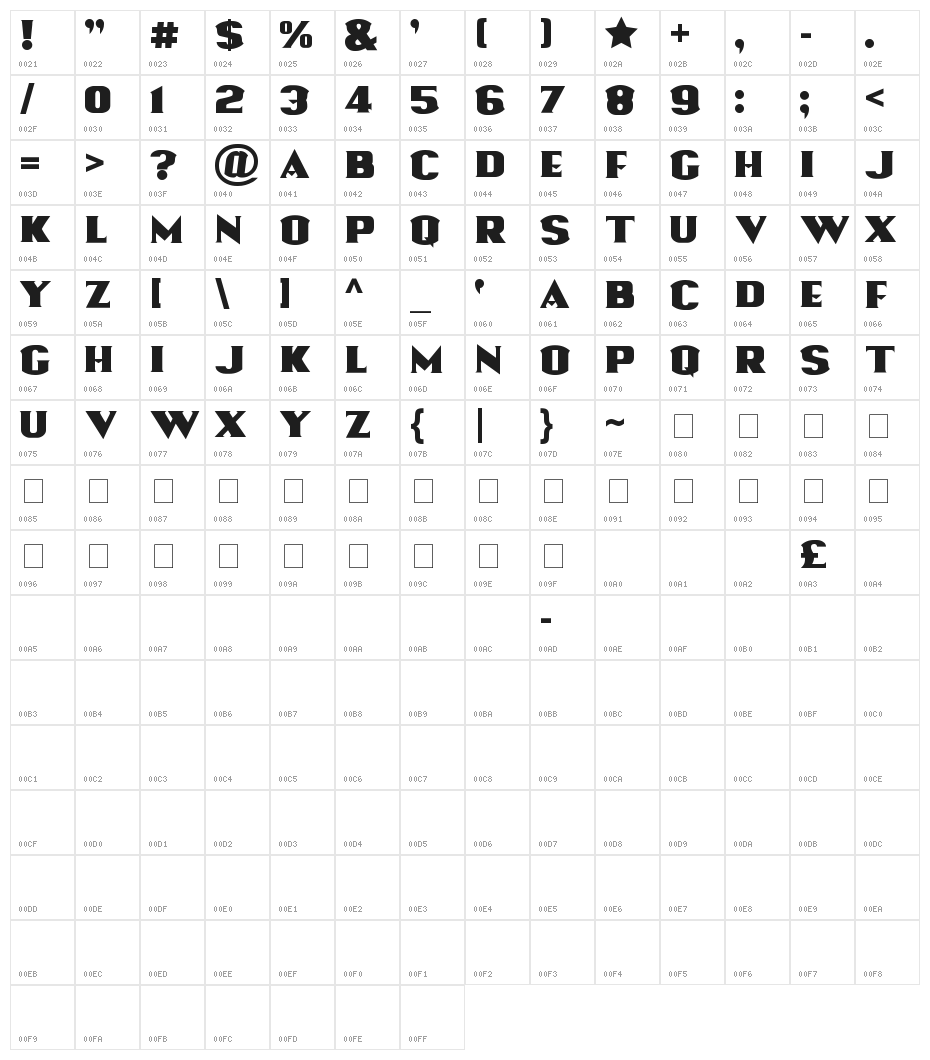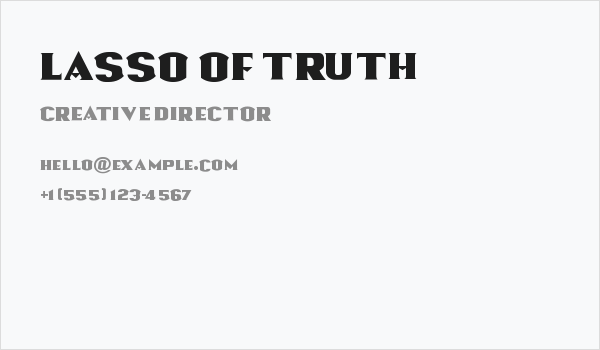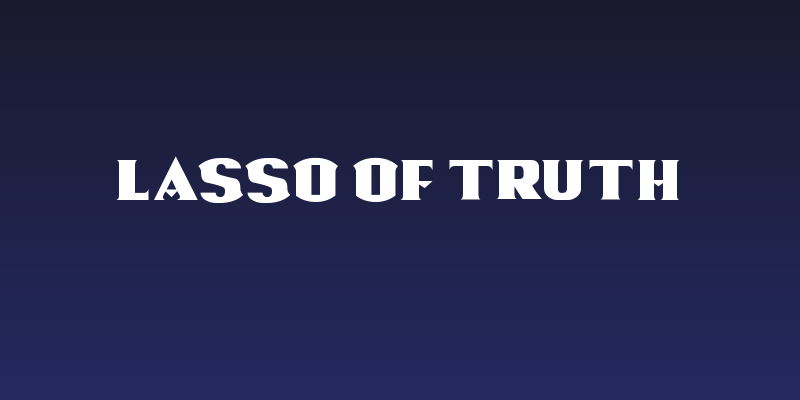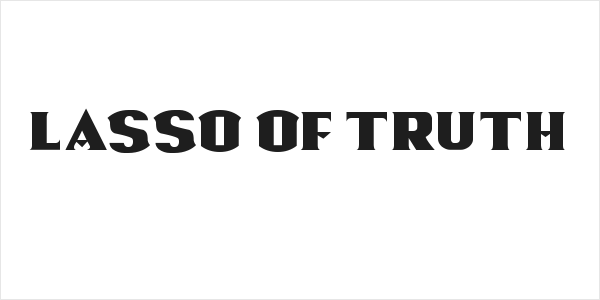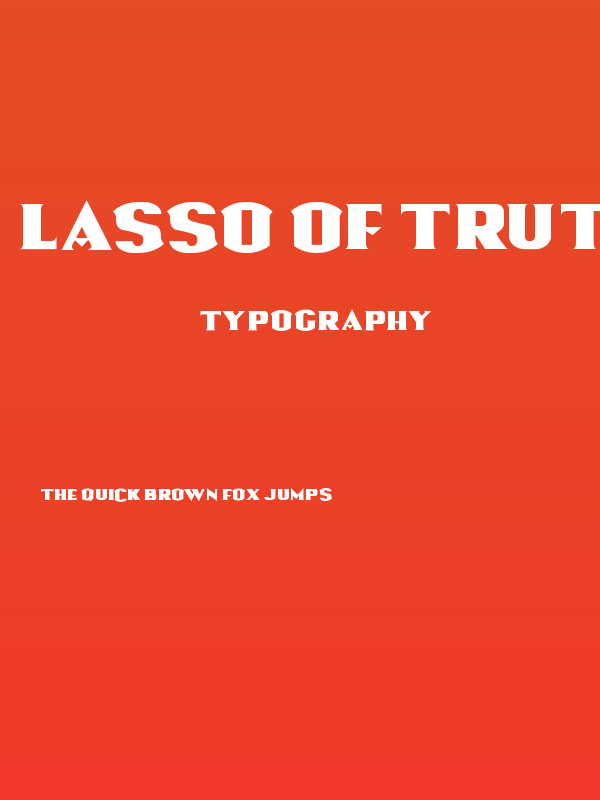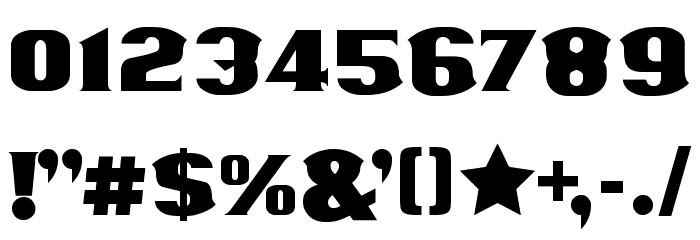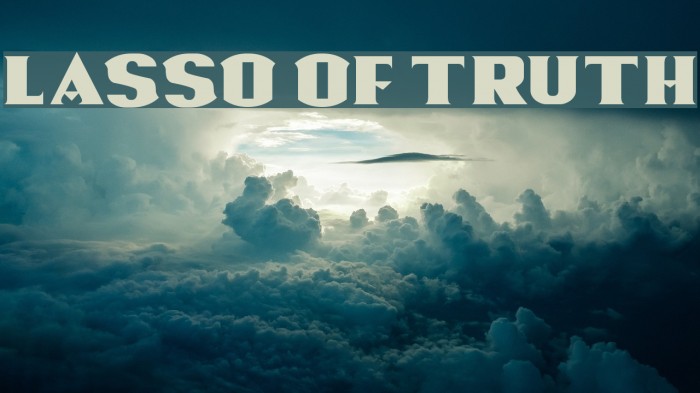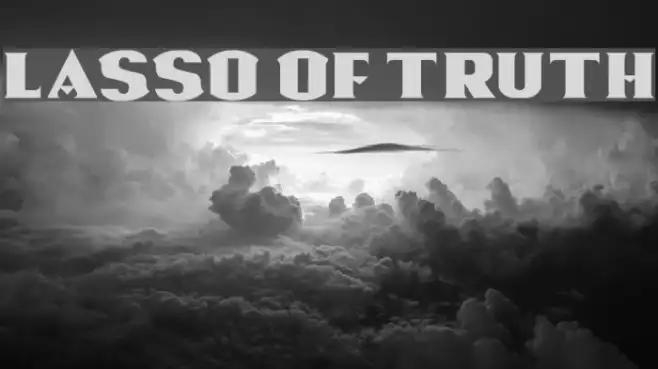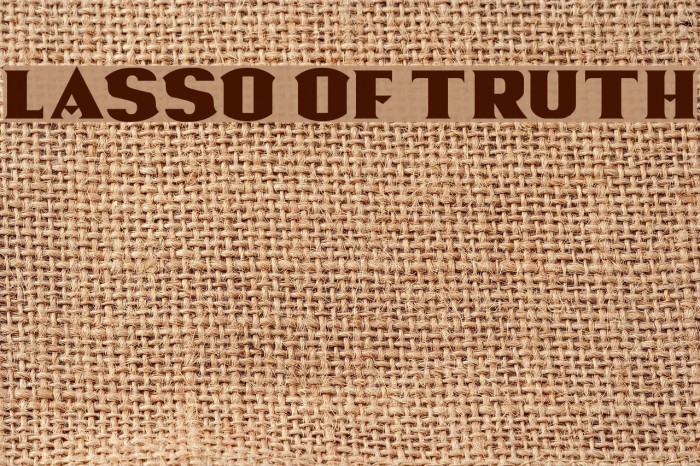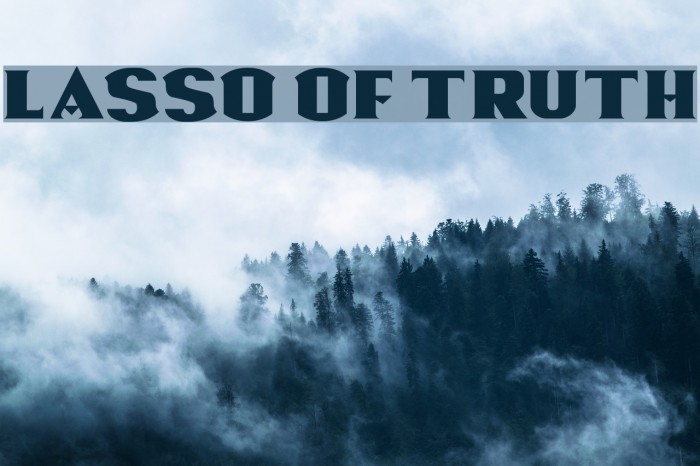
Lasso Of Truth Font
Lasso Of Truth Description
This font features a bold and striking design with sharp, angular serifs and a strong presence. The uppercase letters are particularly prominent, with a distinct geometric style that gives them a commanding appearance. The lowercase letters maintain the same boldness, ensuring consistency across the typeface. Numbers and special characters are equally robust, making them ideal for attention-grabbing displays. The overall design is reminiscent of vintage western or circus themes, characterized by its decorative and impactful nature.
| Proposed Projects | Ideal for posters, logos, and branding projects that require a bold, vintage aesthetic. Suitable for themed events, signage, and any design needing a strong, eye-catching typeface. |